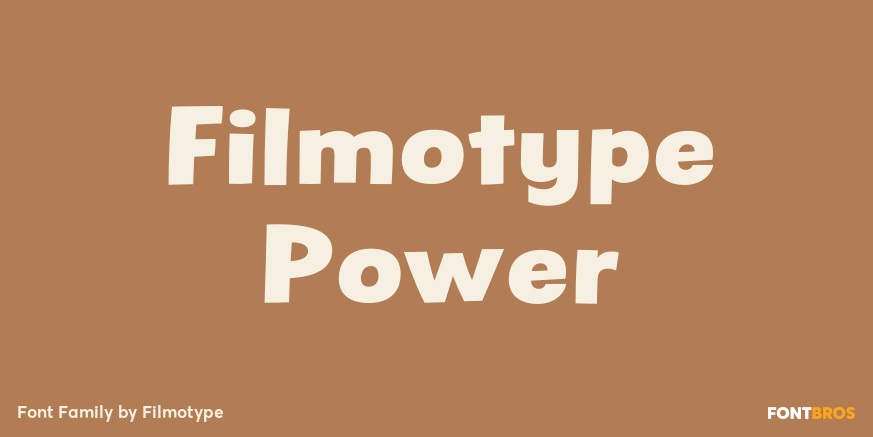
Filmotype Power
About Filmotype Power
Make way for Filmotype Power, a wide bouncy sans serif originally released by Filmotype in 1955 and captures the essence of mid-century casual playfulness. Filmotype Power was developed from the original font filmstrips and includes a full international…